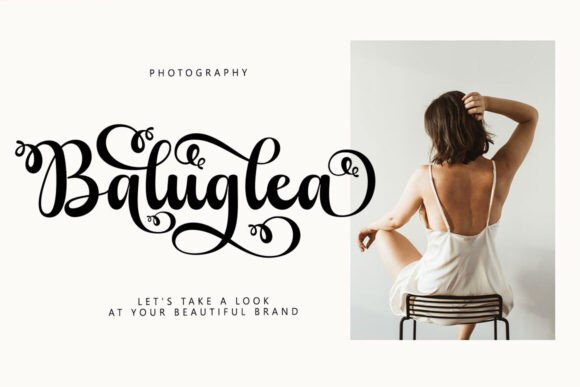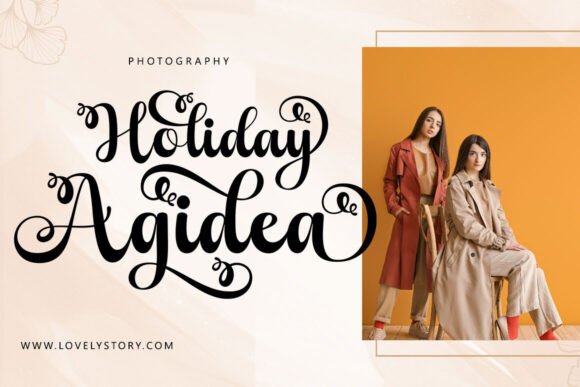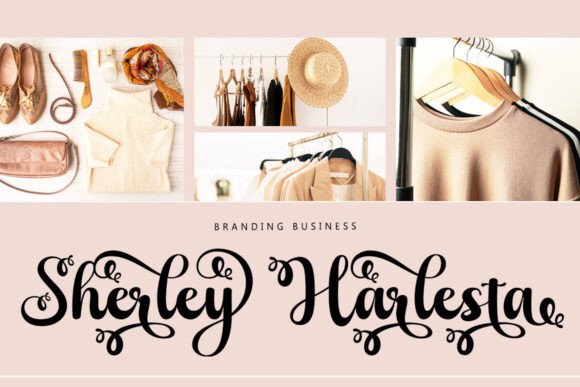
Baby Kayla Font: Elegant Script for Wedding Invitations & DIY Crafts
About the Baby Kayla Font
Step up your design game with Baby Kayla Font, a font that exudes confidence and style. Baby Kayla is an elegant, beautiful, and cute script font. Its love-centric look makes it perfect for all your best design projects. Expertly designed to be a true favorite, this font has the potential to take your creative ideas to the next level! This font is PUA coded which means you can easily access all the glyphs and strokes!
Baby Kayla is appealing because it is sleek, clean, feminine, sensual, glamorous, simple, and readable, thanks to its luxurious letter connections. The classic style is perfect for applying in various formal forms such as invitations, labels, restaurant menus, logos, fashion, makeup, stationery, novels, magazines, books, greeting/wedding cards, packaging, labels, or any type of advertisement.
Baby Kayla Font Usage Examples
Baby Kayla Font Example